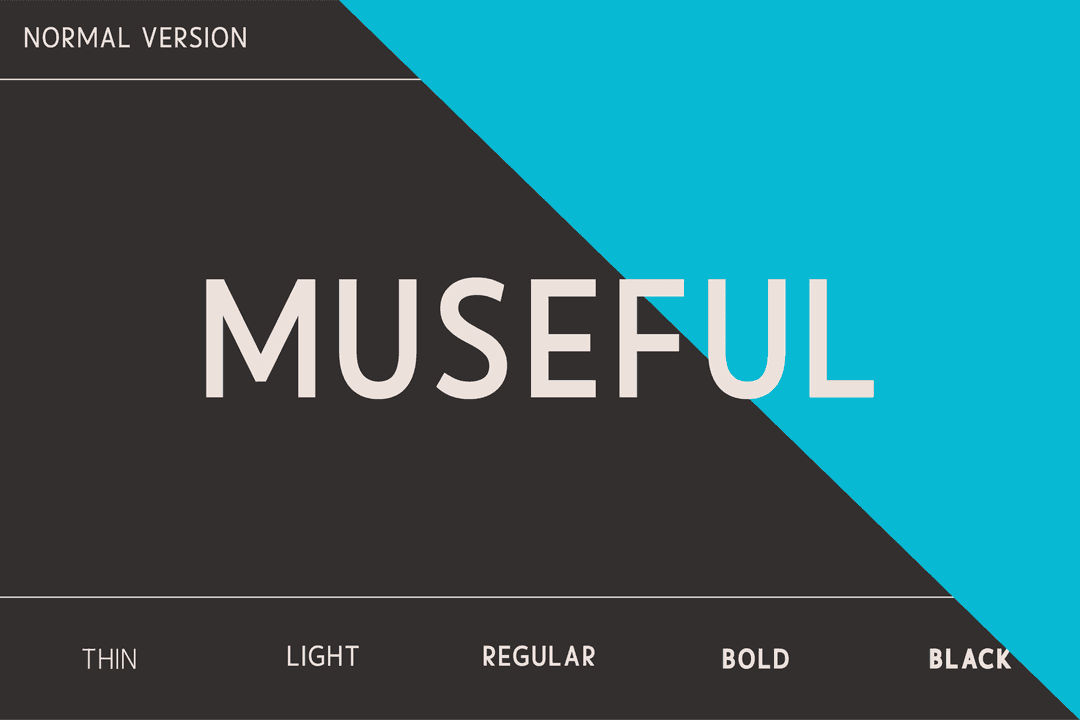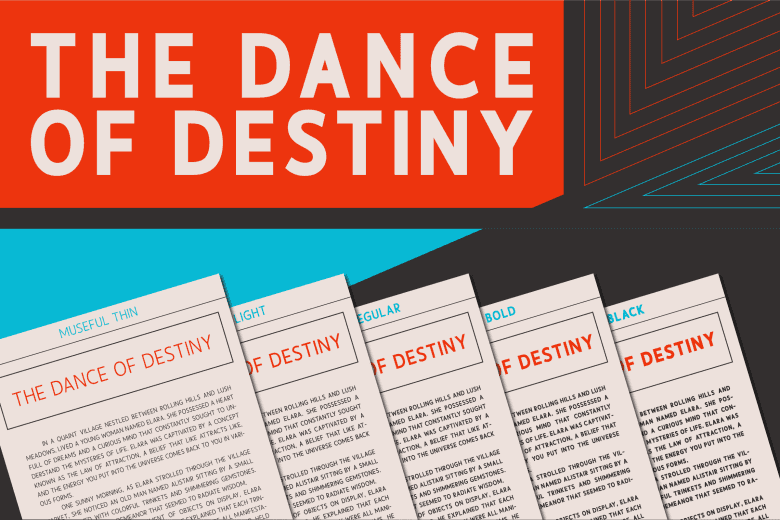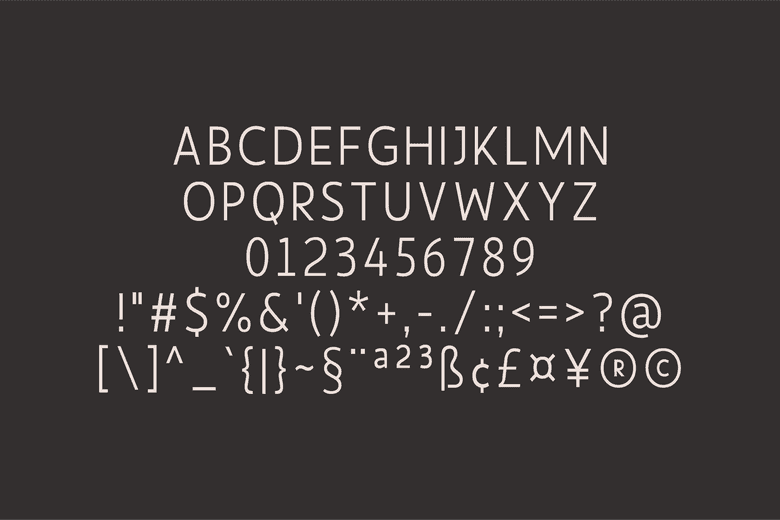
Museful Font was inspired by the sloppy grungy letters found on movie theater programs from around the turn of the 20th century. Boasting five weights, its sans serif collection effortlessly marries modernity with luxury while being made to exacting standards of precision. Use it to bring timeless style into any design you are working on, whether its for magazines, film posters or anything else!